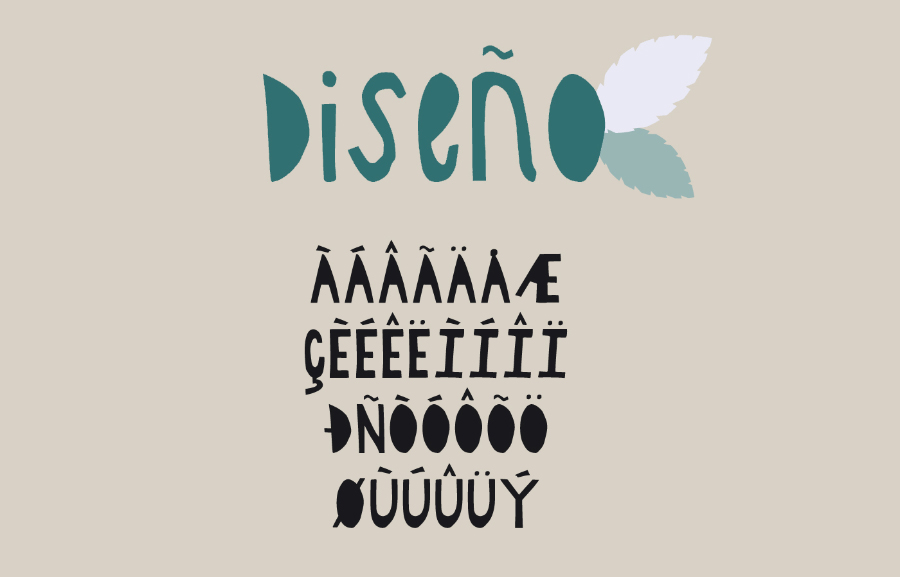
Paper – a paper cut font
Continue is a new free fonts, I want to introduce to you a new display font. That is Paper Font! Paper designed and shared by Amy Cox. Paper – a paper cut font, this is a unique font display. This is a bold, capital letters only cover, you can use it for branding, design magazine covers etc …